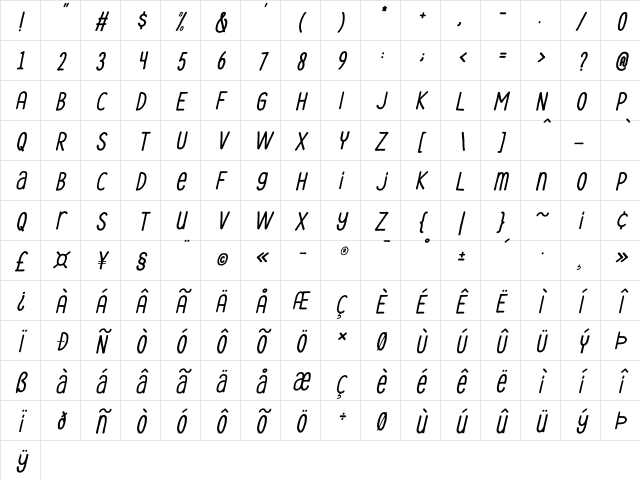
Le-Havre-City-Medium-Oblique Free Font
Le-Havre-City-Medium-Oblique Havre-City-Medium-Oblique
Style: Havre-City-Medium-Oblique
Design Context for Le-Havre-City-Medium-Oblique
Le-Havre-City-Medium-Oblique is a composed and adaptable typeface that performs quietly and consistently across a wide range of design contexts. The slanted form adds forward momentum and visual energy.
Pro Tip: Use Le-Havre-City-Medium-Oblique for emphasis, pull quotes, and subheadings where its slanted energy can add rhythm to the layout.